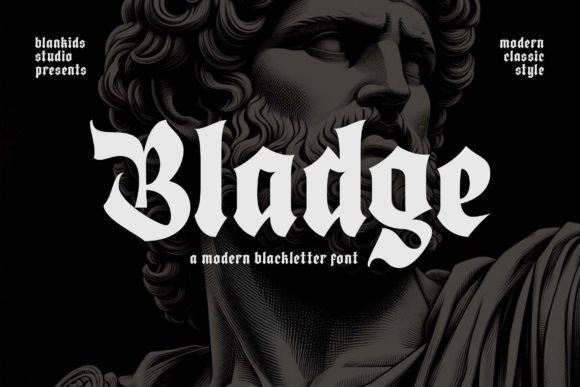
Introducing Bladge: The Bold Statement Font for Western and Gothic Themes
I’ll never forget the design project that led me to discover Bladge. I was working on a branding campaign for a tattoo parlor, and I was struggling to find a font that captured the perfect blend of classic elegance and modern edge. The client wanted something that would stand out, but still pay homage to the traditional tattoo art. After hours of scouring font libraries and marketplaces, I stumbled upon Bladge – a unique font that seamlessly blends the classic elegance of blackletter gothic with a contemporary flair.
What Makes Bladge Special?
Bladge is more than just a font – it’s a statement piece. Its distinctive style makes it an excellent choice for branding in various industries, especially for tattoo parlors, barbershops, and apparel. With Bladge, you can elevate your design projects with a timeless yet modern aesthetic that leaves a lasting impression.
An Honest Review of Bladge
The Good ✨
- ✅ Unique blend of classic blackletter gothic and modern flair
- ✅ Extensive OpenType features, including glyphs and stylistic alternates
- ✅ Perfect for western and gothic-themed designs
The Not-So-Good 🤔
- ⚠️ Limited use cases for very formal or traditional designs
- ⚠️ May not be suitable for body text due to its bold nature
The Story Behind Bladge
Bladge was designed with the intention of creating a font that would capture the essence of western and gothic themes. The designer, inspired by traditional tattoo art and classic blackletter gothic fonts, sought to create a modern font that would stand out in any design project. With its unique blend of classic elegance and contemporary flair, Bladge has become a go-to font for designers looking to make a bold statement.
Q: Does Bladge support OpenType features?
A: Yes, Bladge supports OpenType features, including glyphs and stylistic alternates.
Q: Can I use Bladge for branding and identity designs?
A: Absolutely! Bladge is perfect for branding and identity designs, especially for western and gothic-themed projects.